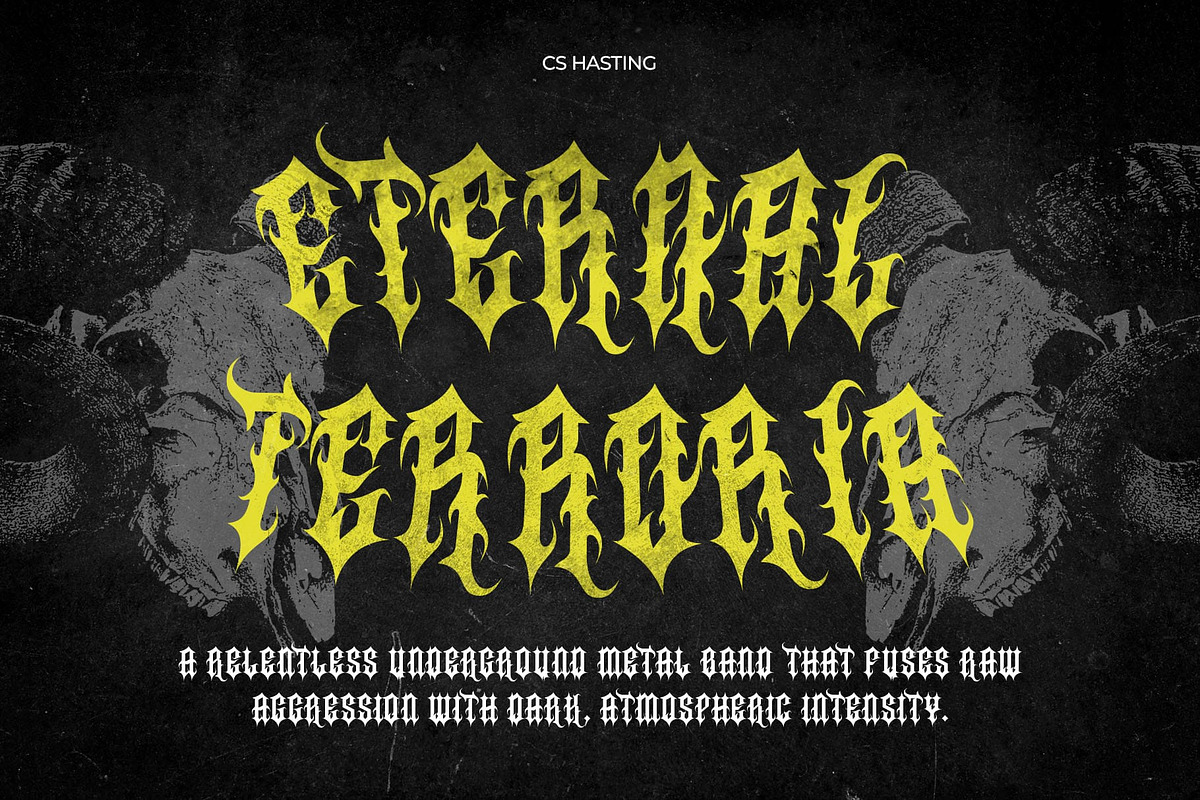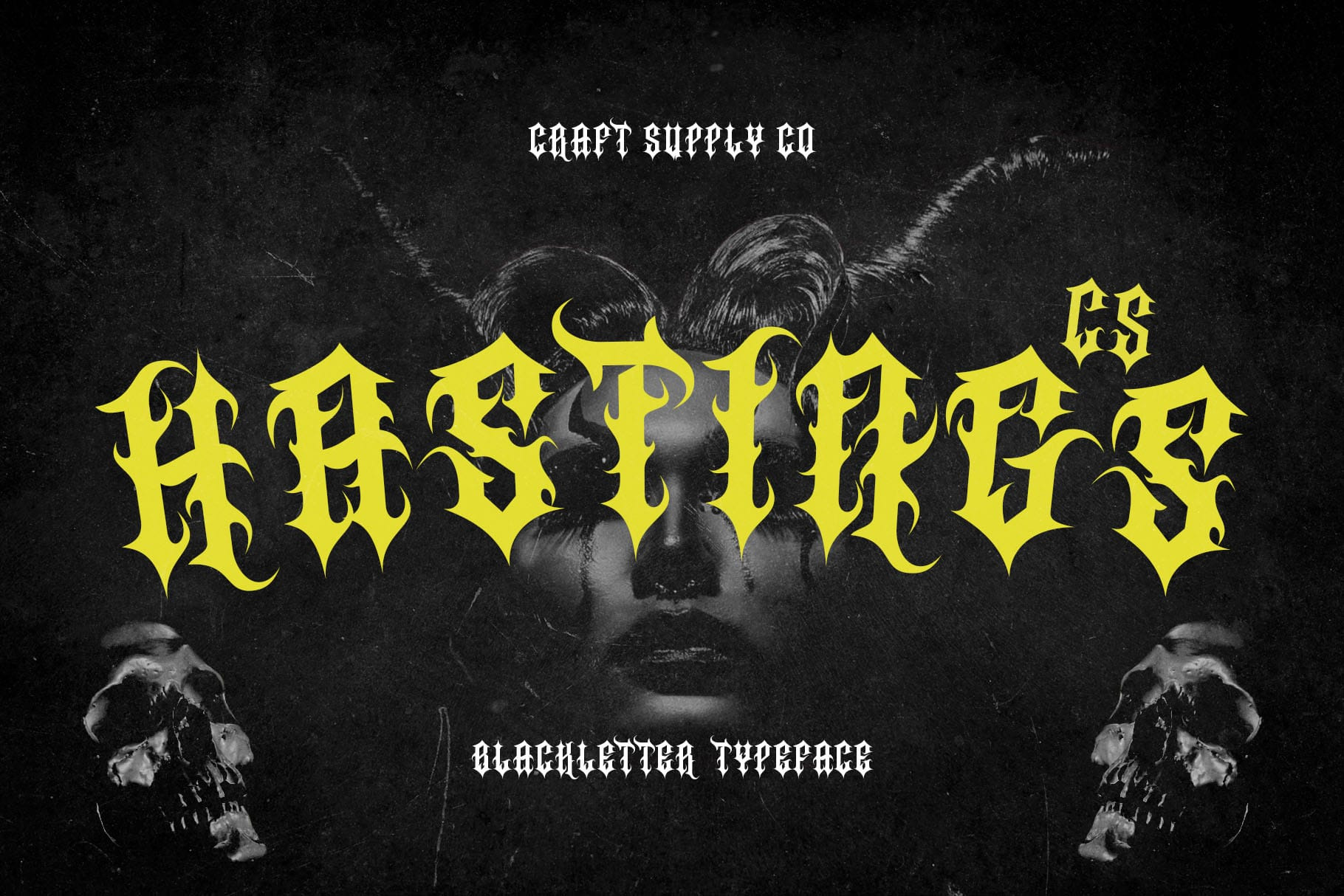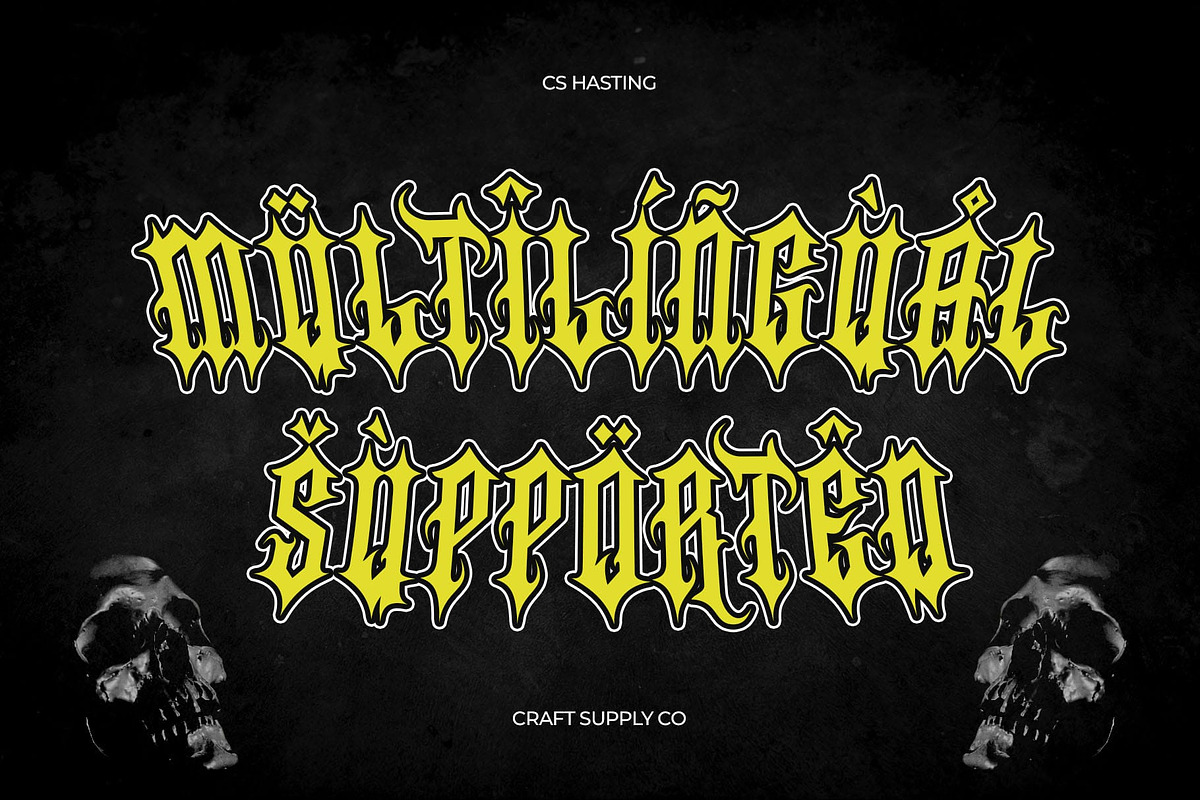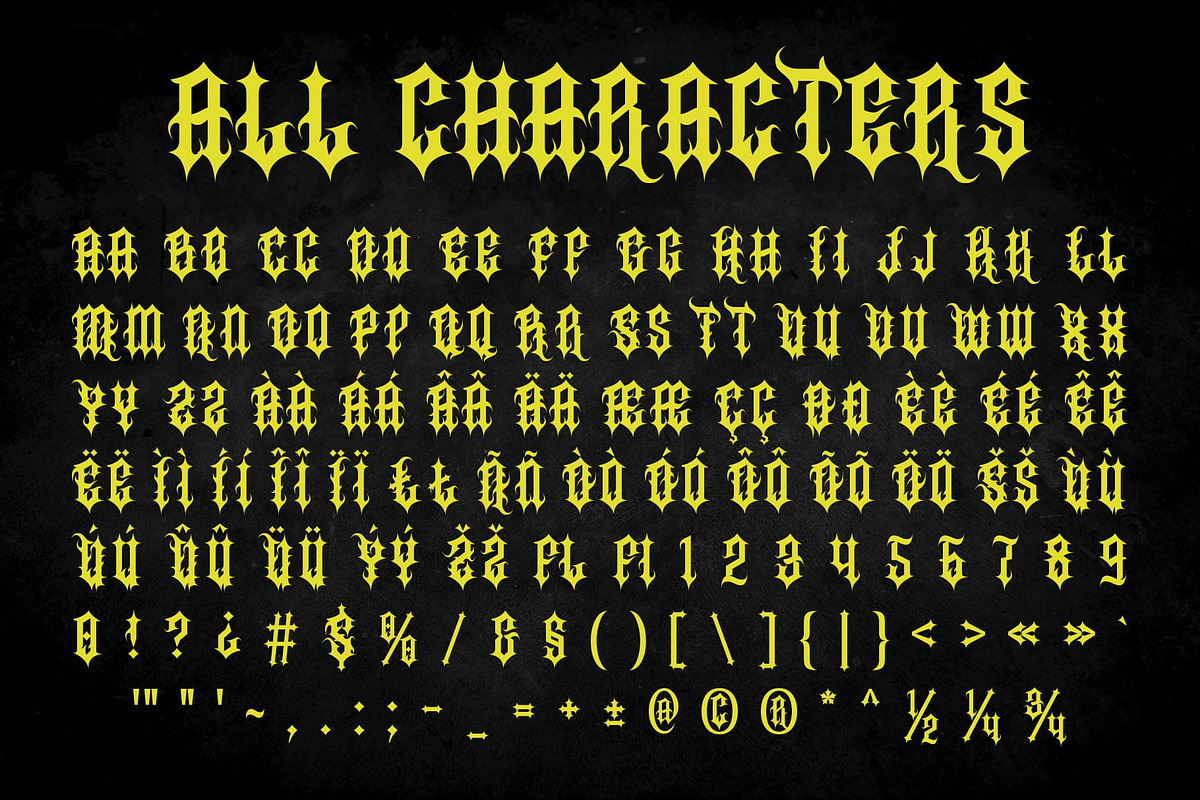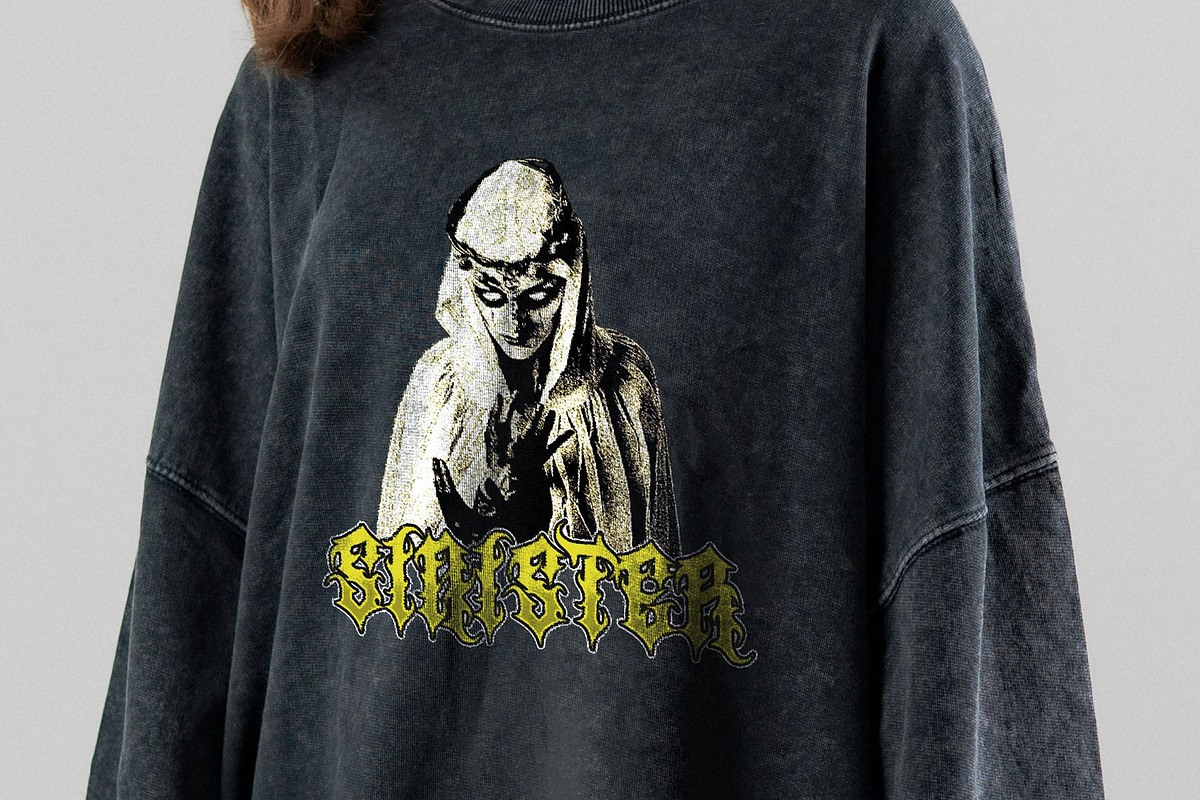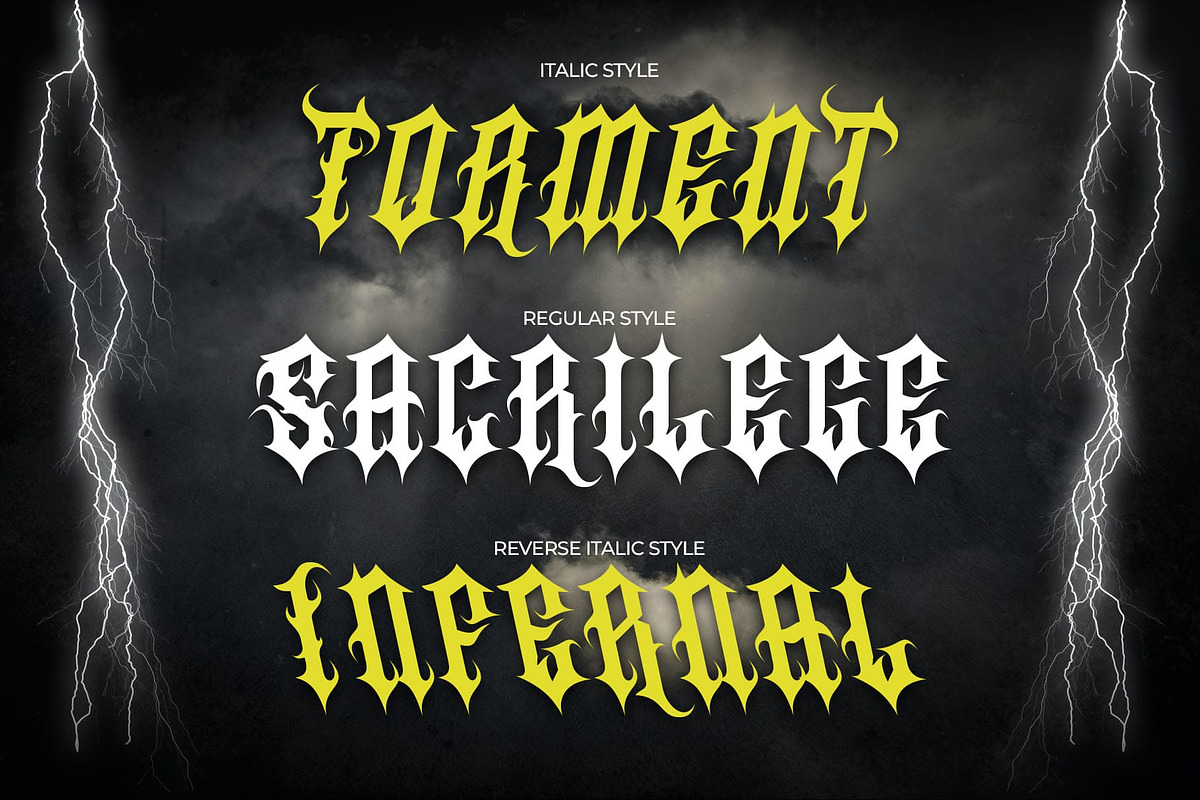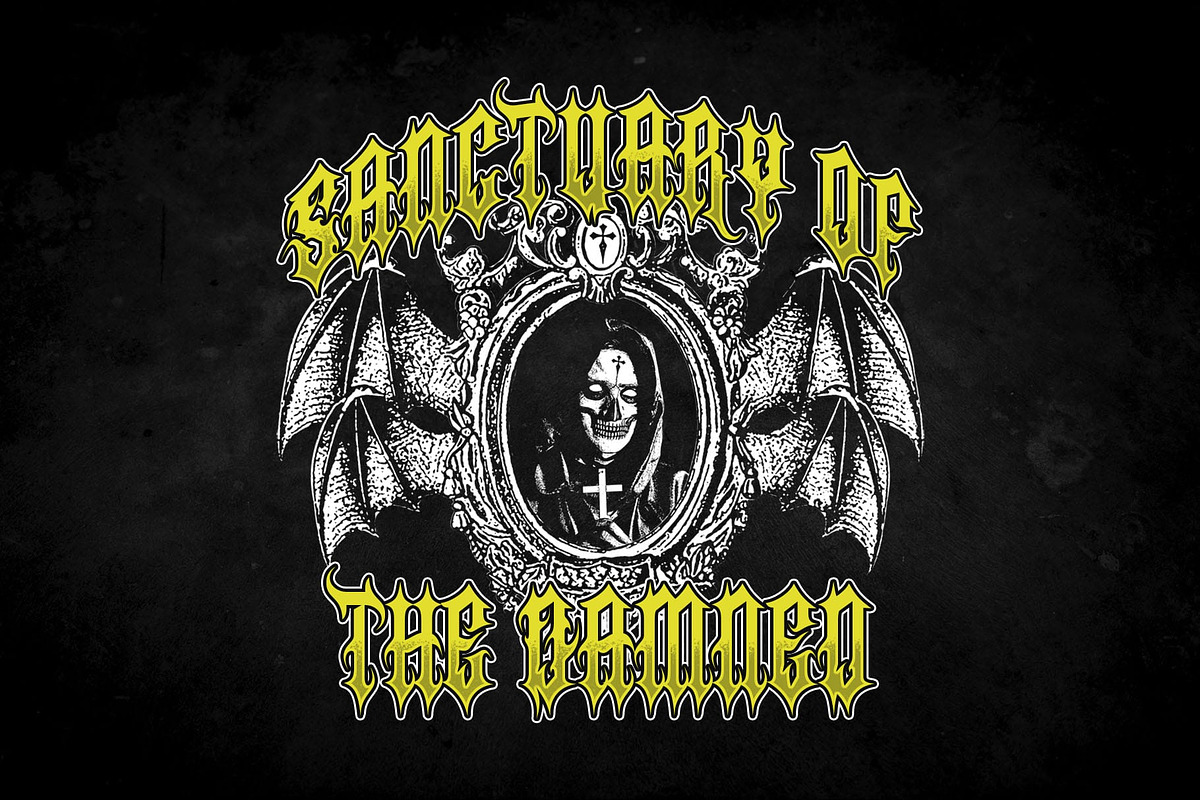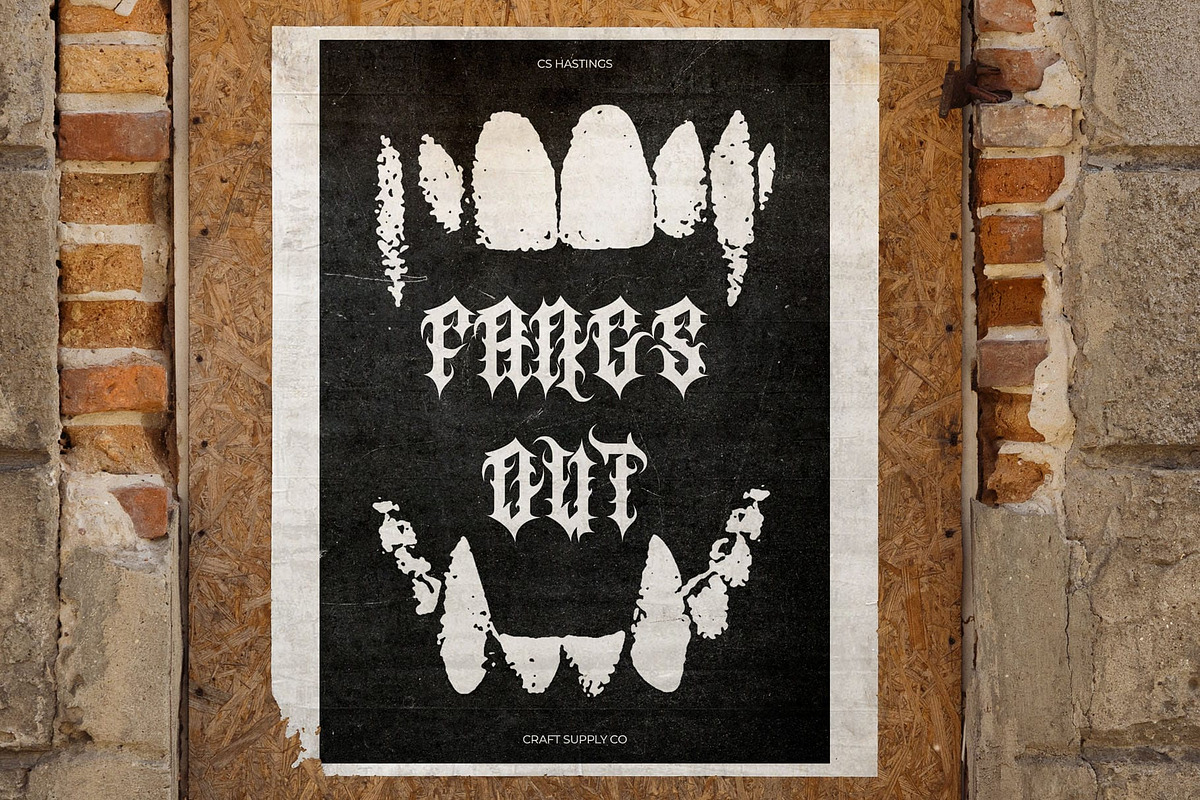
CS Hastings – Blackletter Font
CS Hastings Font: A Bold and Timeless Blackletter Font
Classic Blackletter with a Strong Presence CS Hastings is a striking display blackletter font that embodies strength, tradition, and historical elegance. Featuring bold, sharp strokes and intricate ornamental details, this font delivers an authoritative and dramatic aesthetic, making it perfect for designs that demand a powerful visual impact.
Inspired by Medieval and Gothic Typography Drawing from medieval script and gothic calligraphy, CS Hastings captures the essence of historical typography while maintaining a modern edge. Its angular letterforms and decorative flourishes create a sense of mystery and grandeur, making it an ideal choice for historical branding, book covers, and themed projects that seek a vintage yet powerful appeal.
Perfect for Metal, Vintage, and Bold Designs With its commanding presence and dark elegance, CS Hastings is a top choice for metal band logos, tattoo designs, gothic posters, and vintage-themed branding. Its rich texture and strong character ensure that any design stands out with intensity and depth, adding a timeless and iconic feel to your projects.
Versatile and Impactful for Distinctive Branding Whether used for album covers, barbershop logos, beer labels, or fantasy game titles, CS Hastings offers versatility with a bold statement. Its historical charm, artistic complexity, and commanding aesthetic make it a go-to font for projects that require a strong, confident, and unforgettable typeface.
- CS Hastings Regular
- CS Hastings Italic
- CS Hastings Reverse Italic